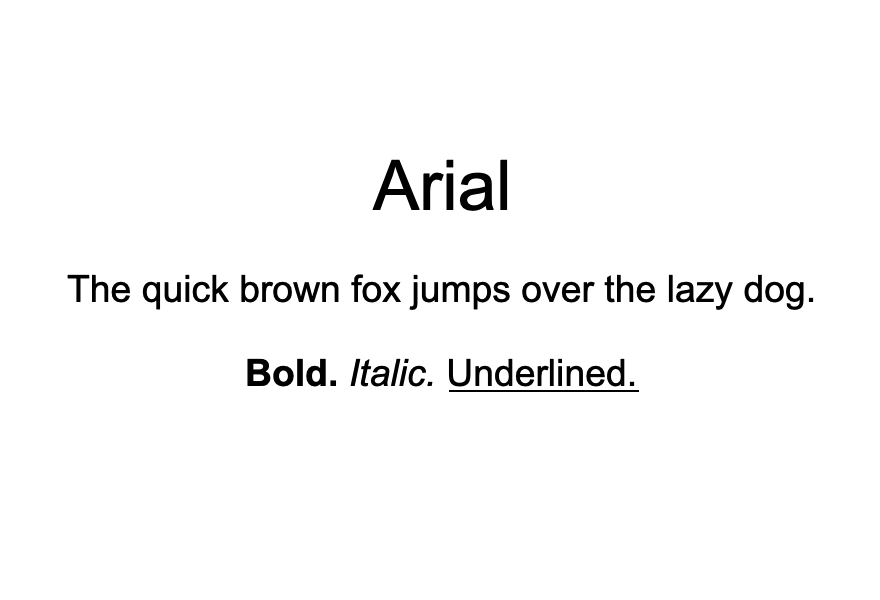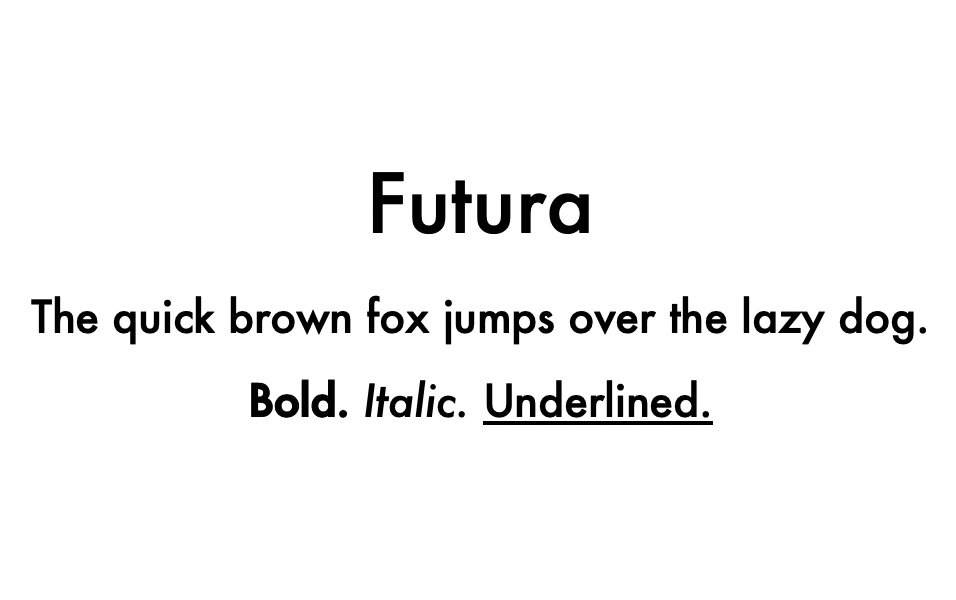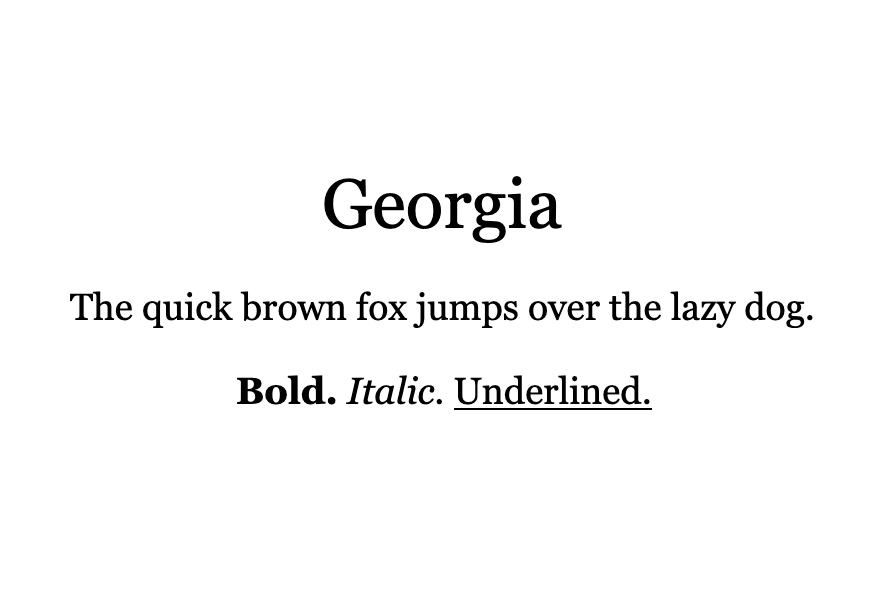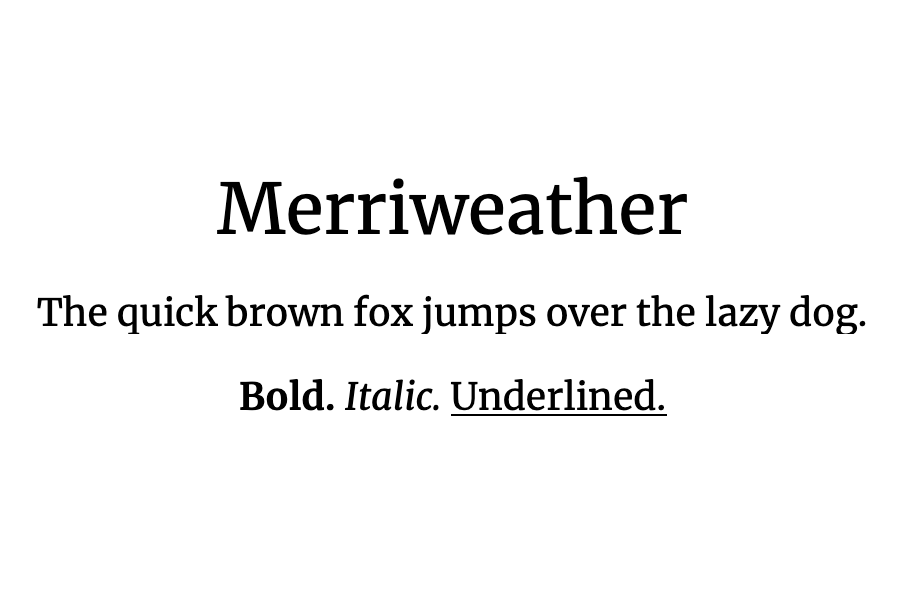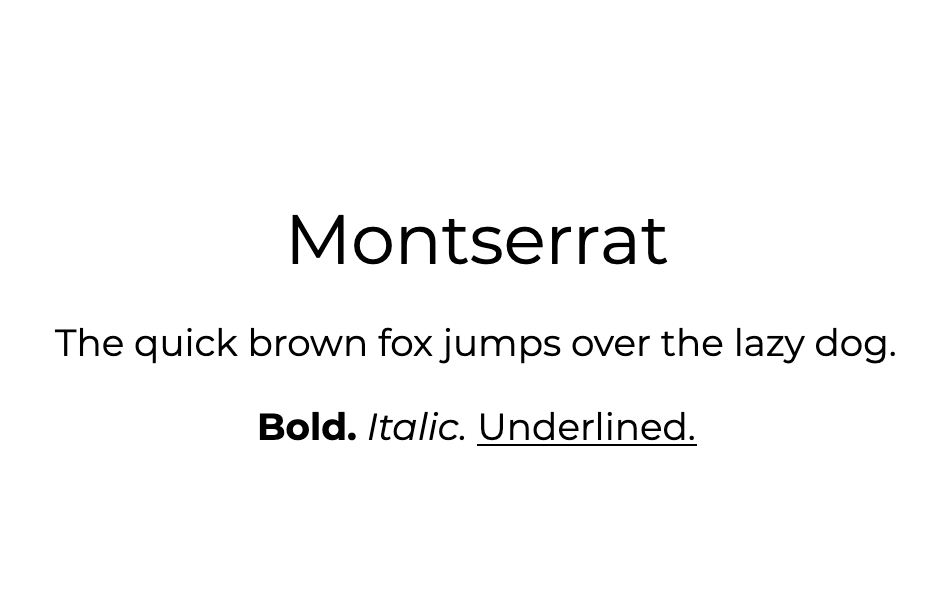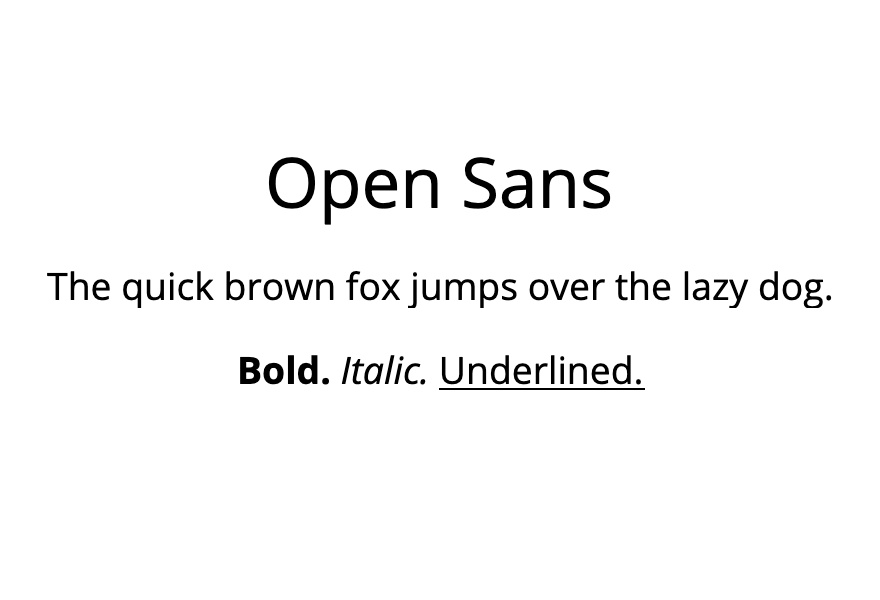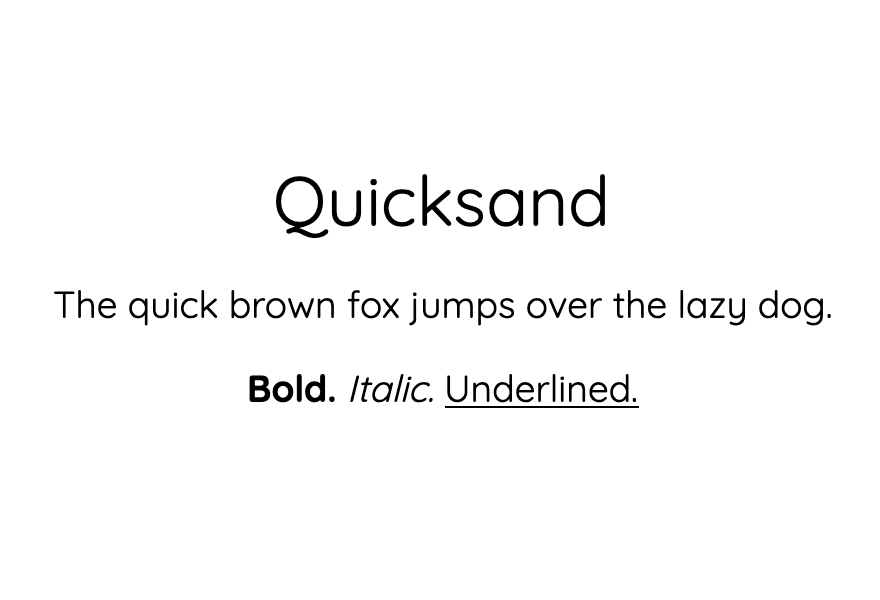
What Is the Easiest Font to Read?
We often forget that text – or more specifically, typeface – is an integral part of web design. In fact, your font choice can make or break your entire website. It doesn’t really matter how beautiful or easy to navigate your site is if visitors struggle to read its content.
This is why it’s smart to choose one of the easiest fonts to read for the majority of the text in your web design projects. In this post, we’ll talk about what makes a typeface legible and share ten popular options to consider for your next site.
Let’s jump in!
What Makes a Font Easy to Read?
There are several factors that come into play when determining how easy a font is to read. The three basic concerns are:
• Serifs. These are the small strokes or feet that come off of the main lines of each character in certain typefaces. You can refer to the “elegant” in our logo for an example. It’s generally accepted that sans-serif fonts (fonts without serifs, like the one you’re reading now) are easier to read on screens. However, as you’ll see in our list below, there are some exceptions to this rule.
• Spacing. More specifically, kerning, tracking, and leading. These terms refer to how close individual characters, words, and lines are to one another in a font. If the spacing is too tight, the characters become difficult to discern. If it’s too spread out, it can be hard to put the right letters together to form words.
• Font size. What size you set your text to could make a readable font hard to make out. Additionally, there are some fonts that adapt better to smaller sizes than others.
In addition to these guiding factors, there are a couple of other principles to keep in mind. You should generally avoid script and decorative fonts, except maybe for titles or other special text. It’s strongly recommended never to use them for body text. These typefaces tend to become harder to read at smaller sizes and when used for long blocks of text.
Additionally, keep your font’s color in mind. It’s important for your text and background to have enough contrast to make it easier for color blind and visually impaired users to make the words out. However, it’s also widely accepted that ‘reversed’ type (light-colored text on a dark background) is more difficult for everyone to read.
What Is the Easiest Font to Read? (10 Top Options)
Our list of the most readable fonts includes a variety of styles suitable for different use cases in web design. Some of these typefaces may be immediately familiar to you, as they’ve been popular for years. Others are newer and feature elements specifically chosen to meet the needs of modern digital readers.
Let’s start with some old favorites.
1. Arial
An example of the Arial font.
Arial is the standard font for many word processors, such as Microsoft Word and Google Docs. It’s a clean, contemporary, sans-serif typeface that works extremely well for body text.
Due to its popularity and familiarity, Arial easily adapts to just about any style. It’s truly timeless. Another perk of it being so widespread is that you likely won’t have trouble accessing it for use in your designs.
2. Helvetica
An example of the Helvetica font.
Another old-school sans-serif typeface you may want to consider is Helvetica. It’s unobtrusive, providing easy-to-read body text that won’t detract from the other aspects of your site’s design.
In fact, this font was purposefully designed to be lacking in personality. Although it’s one of the most popular typefaces in the world, it’s also highly contentious. Designers tend to love it or hate it.
3. Georgia
An example of the Georgia font.
One of the few serif fonts on our list is Georgia. This typeface stands out for it’s classy, ‘old-timey’ feel that’s perfect if you want to inject a little character into your site design.
Georgia pairs nicely with many sans-serif fonts for use in headings and titles. This is an excellent solution if you like the look of a serif font but want to make sure smaller text remains clean and easy to read.
That said, Georgia has been optimized for readability on screens of all sizes. If you’re in love with this charming typeface, don’t be afraid to experiment with it as a body text font.
4. Merriweather